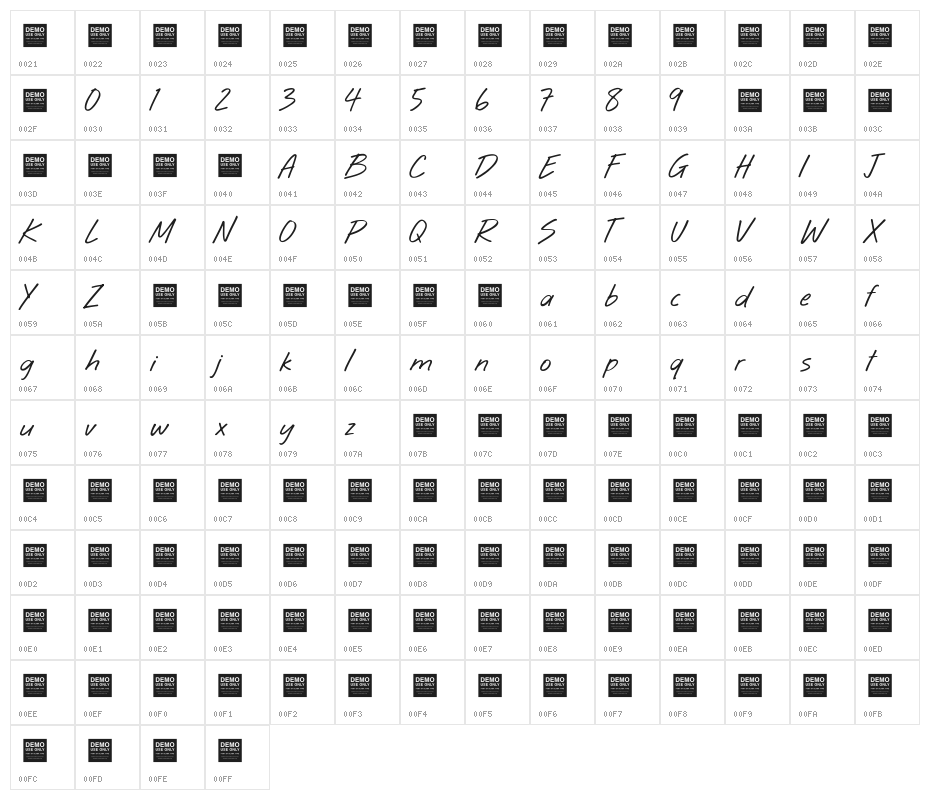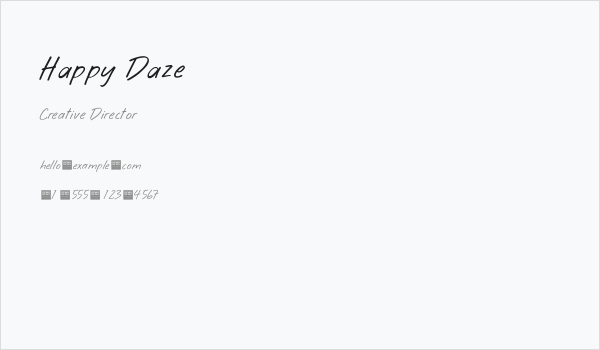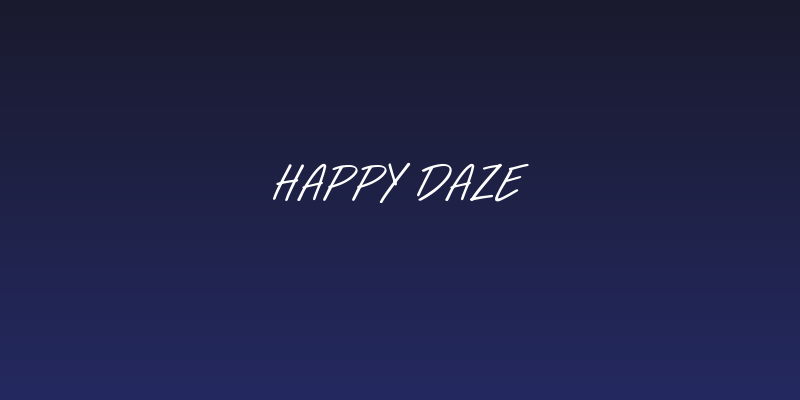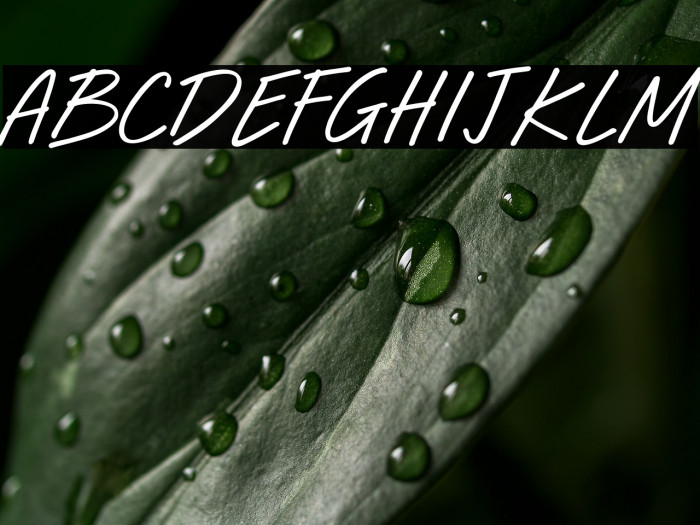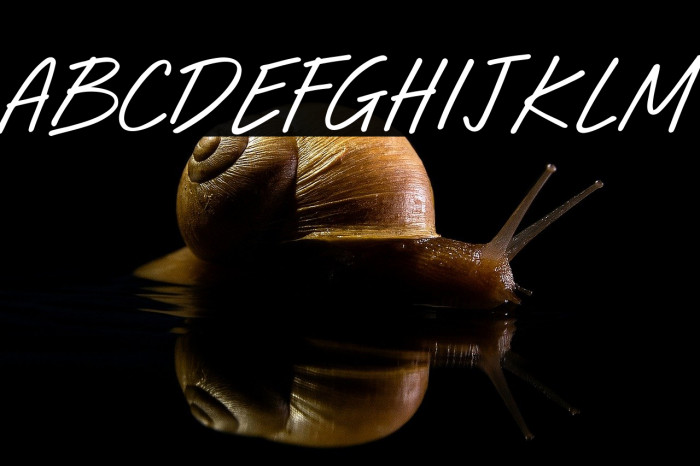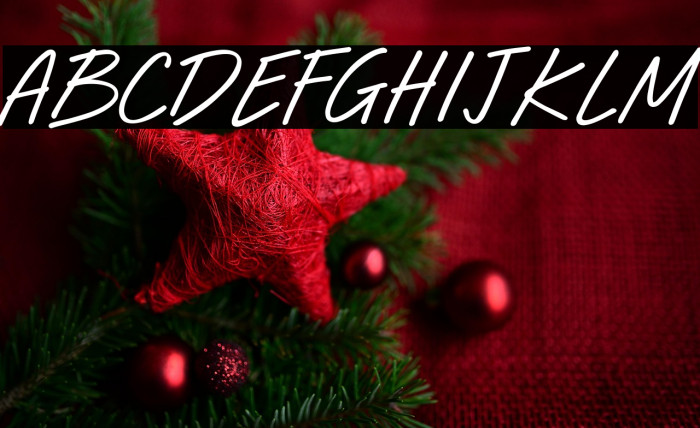
Happy Daze Font
Happy Daze Description
This font exudes a casual and friendly vibe with its handwritten style, characterized by smooth, flowing lines and a slightly slanted orientation. The letters are well-spaced, providing a clean and readable appearance. The uppercase and lowercase letters maintain a consistent style, with rounded edges and a natural, organic feel. The numerals and special characters complement the alphabet with similar fluidity and charm, making it versatile for various design needs.
| Use Case | Logos, Invitations, Social Media Graphics |
| Proposed Projects | Ideal for personal invitations, greeting cards, casual branding, and social media graphics. |